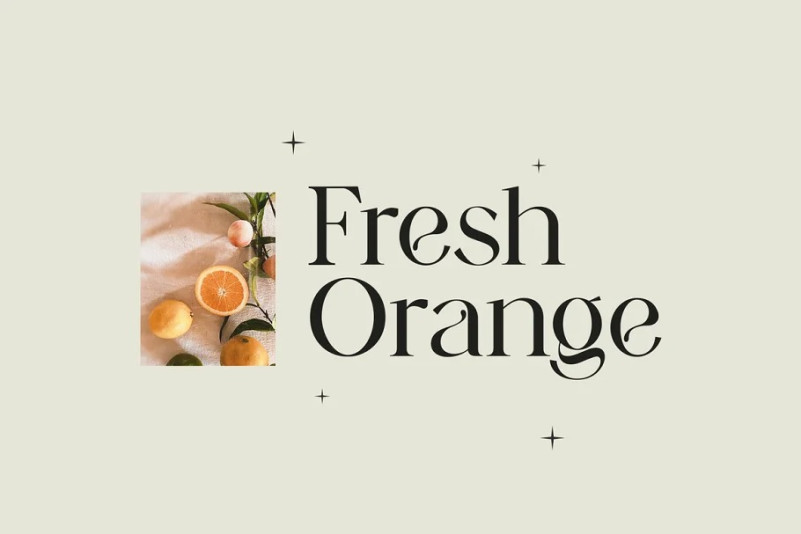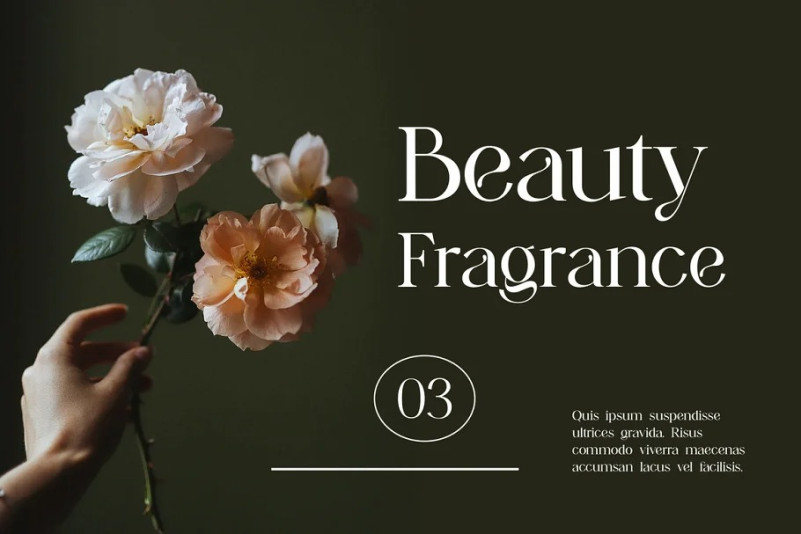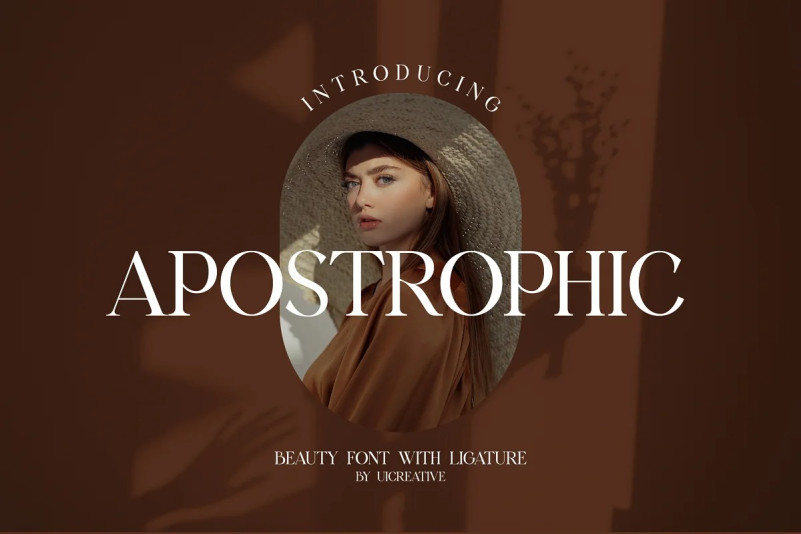
Apostrophic Font
Apostrophic Font – Beauty Serif Font. Modern Serif font that feels beautiful classy, elegant, and modern. This font is ideally suited for a wide variety of projects, such as signature, stationery, logo, wedding, typography quotes, magazine or book covers, website headers, clothing, branding, packaging design, and more. Also, fashion-related branding or editorial design displays both masculine and feminine qualities.